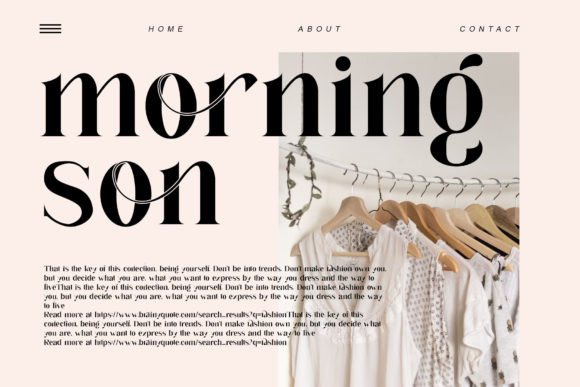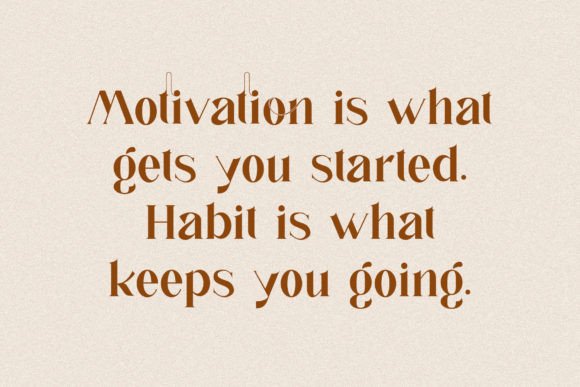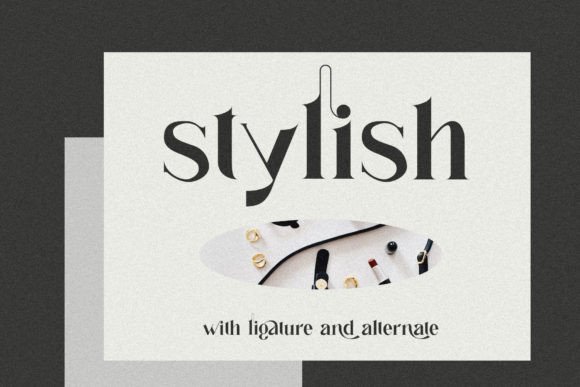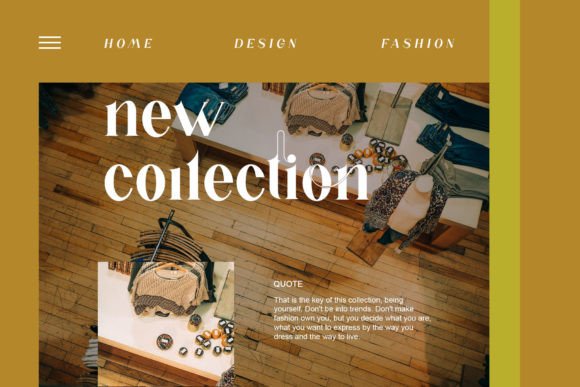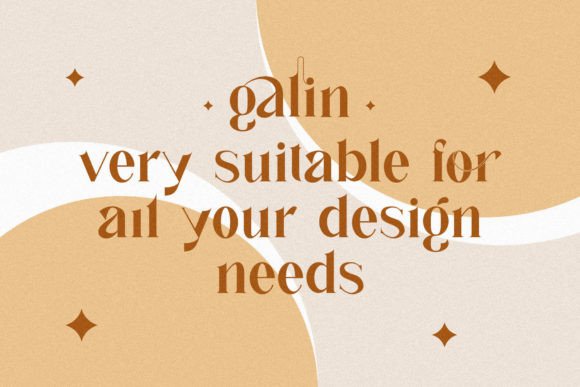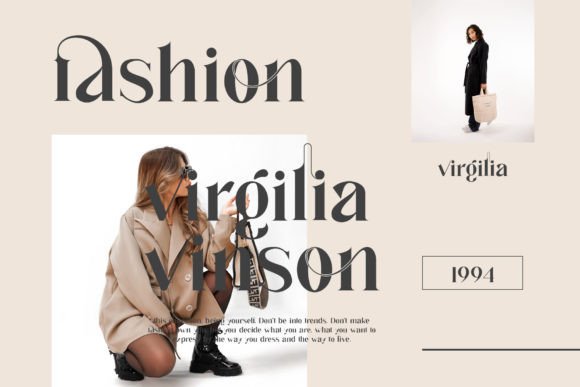
Galin Font: Elevate Your Designs with Elegance and Sophistication
In the world of typography, a font can make or break a design. For those seeking to add a touch of elegance, style, and modernity to their creations, the Galin Font is an excellent choice. This stunning serif typeface is both modern and nostalgic, making it perfect for a wide range of applications, from logos and magazines to social media and more.
The Characteristics of Galin Font
Galin is an elegant and classy serif typeface that exudes sophistication and refinement. Its unique blend of modern and traditional elements makes it an versatile font suitable for various design projects. The font’s clean lines, precise curves, and balanced proportions create a visually appealing aesthetic that is sure to capture the attention of your audience.
What Makes Galin Font Stand Out?
So, what sets Galin apart from other fonts? Here are a few key features that make it an excellent addition to your design toolkit:
- Elegant and Classy: Galin boasts a sophisticated and refined appearance, perfect for designs that require a touch of luxury and elegance.
- Modern and Nostalgic: This font seamlessly blends modern and traditional elements, creating a unique and captivating visual identity.
- Versatile: Galin works great for a wide range of applications, including logos, magazines, social media, and more.
- Ready to Use: The font is already matched up and ready to be used for your next design project, saving you time and effort.
Who is Galin Font for?
Galin Font is perfect for designers, crafters, and anyone looking to add a touch of elegance and sophistication to their designs. Whether you’re working on a logo, brochure, or social media campaign, this font is sure to elevate your project and leave a lasting impression.
How to Use Galin Font in Your Designs
Using Galin Font in your designs is easy and straightforward. Here are a few tips to get you started:
- Pair it with Other Fonts: Experiment with pairing Galin with other fonts to create a unique and visually appealing typography.
- Adjust the Size and Style: Play with different font sizes and styles to create a hierarchy of information and add depth to your design.
- Use it for Headings and Titles: Galin Font is perfect for headings and titles, adding a touch of elegance and sophistication to your design.
Benefits of Using Galin Font
By incorporating Galin Font into your design projects, you can enjoy a range of benefits, including:
- Enhanced Visual Appeal: Galin Font adds a touch of elegance and sophistication to your designs, making them more visually appealing.
- Increased Legibility: The font’s clean lines and precise curves make it easy to read, even at small sizes.
- Improved Brand Identity: Galin Font can help you establish a strong brand identity, setting you apart from your competitors.
In conclusion, Galin Font is an excellent choice for designers and crafters looking to add a touch of elegance and sophistication to their designs. With its unique blend of modern and traditional elements, this font is perfect for a wide range of applications. Whether you’re working on a logo, magazine, or social media campaign, Galin Font is sure to elevate your project and leave a lasting impression.